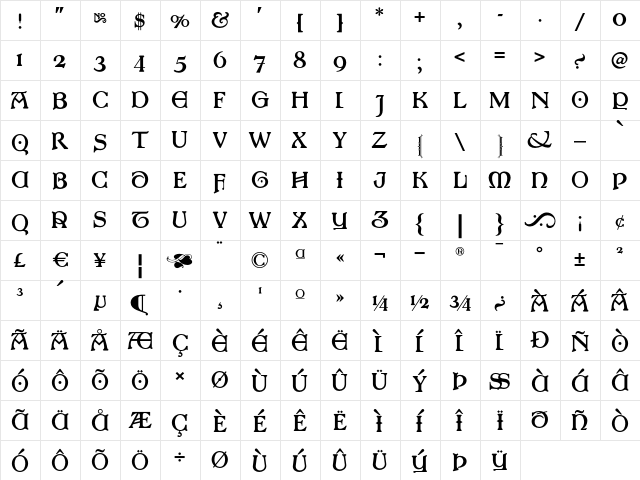
Franciscan Caps NF Regular
Design Context for Franciscan Caps NF Typeface
Franciscan Caps NF is a composed and adaptable typeface that performs quietly and consistently across a wide range of design contexts.